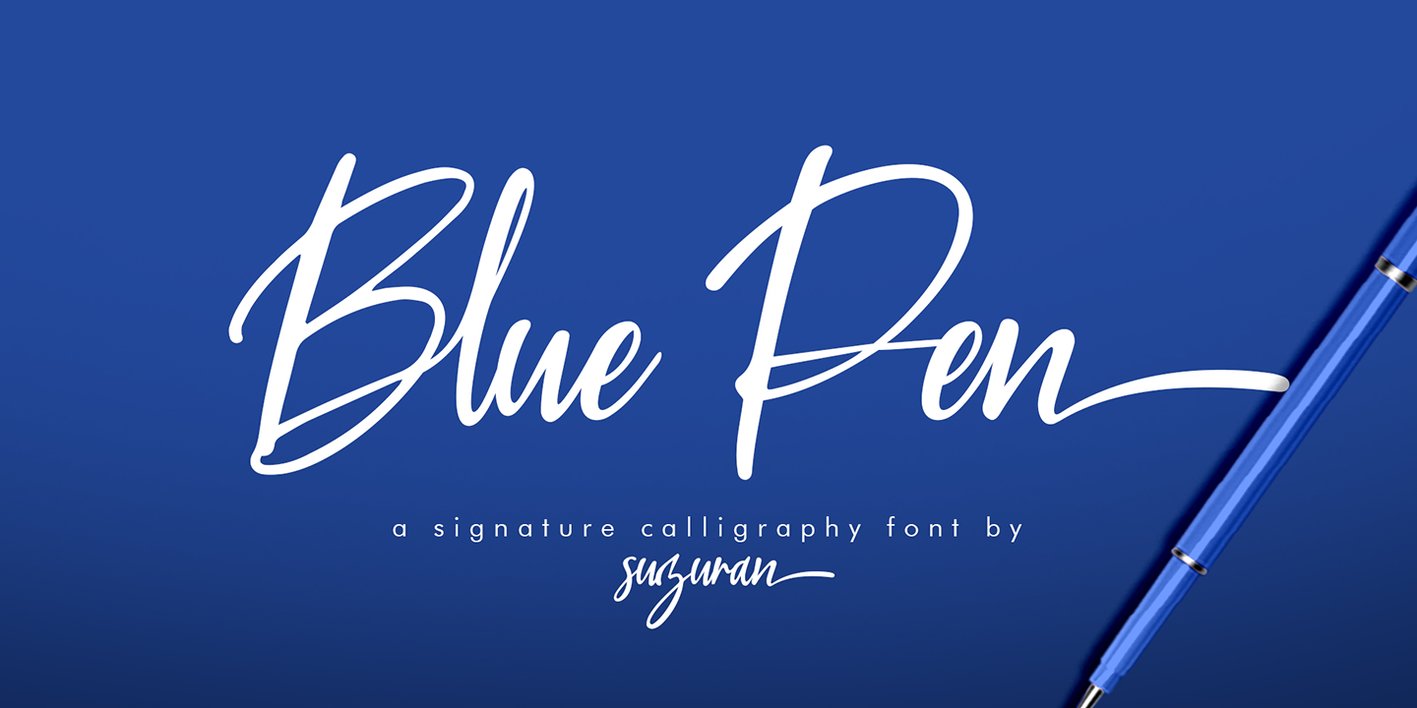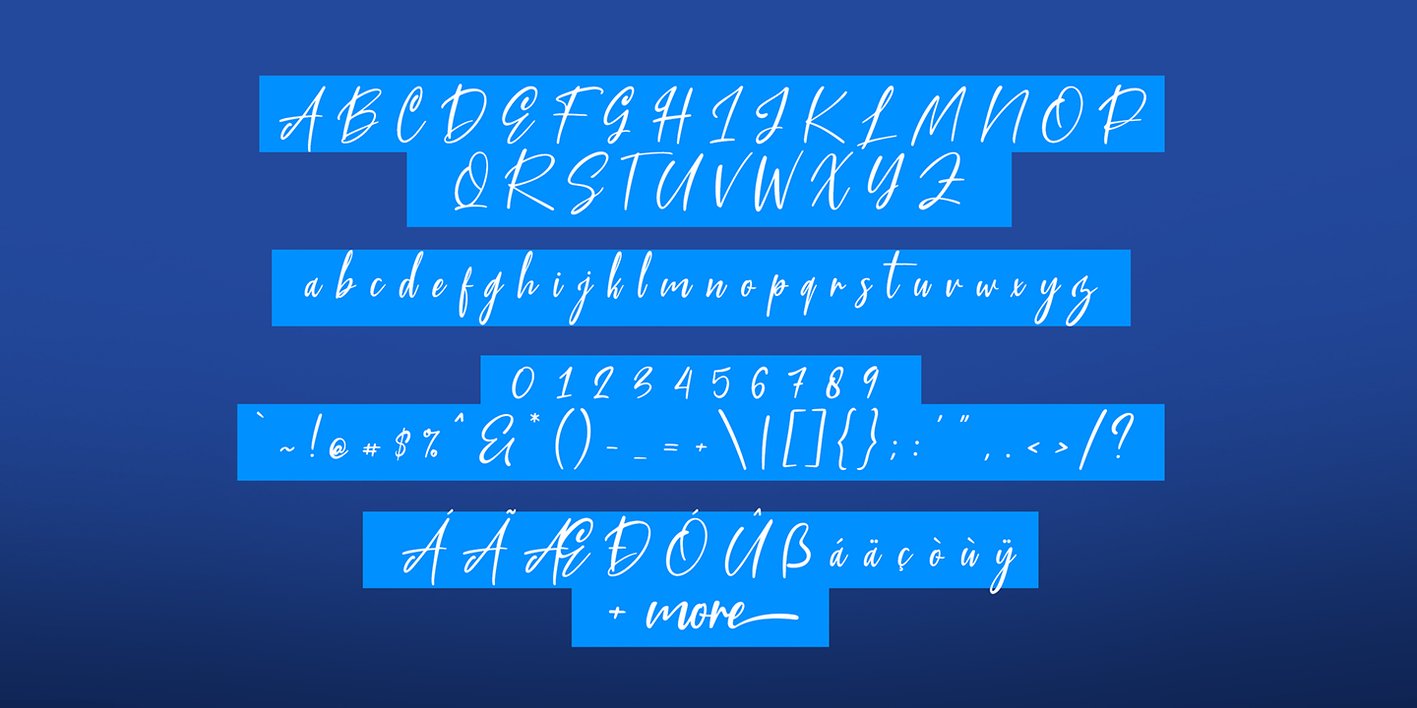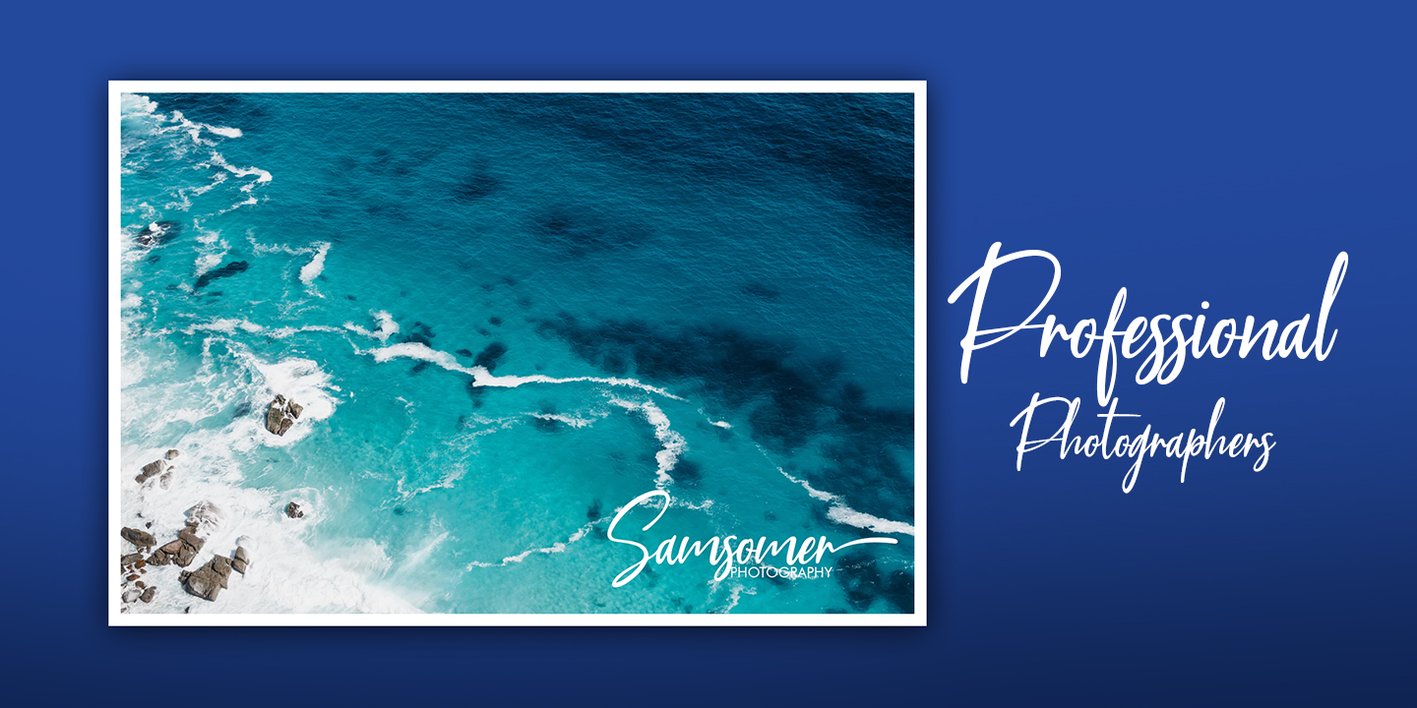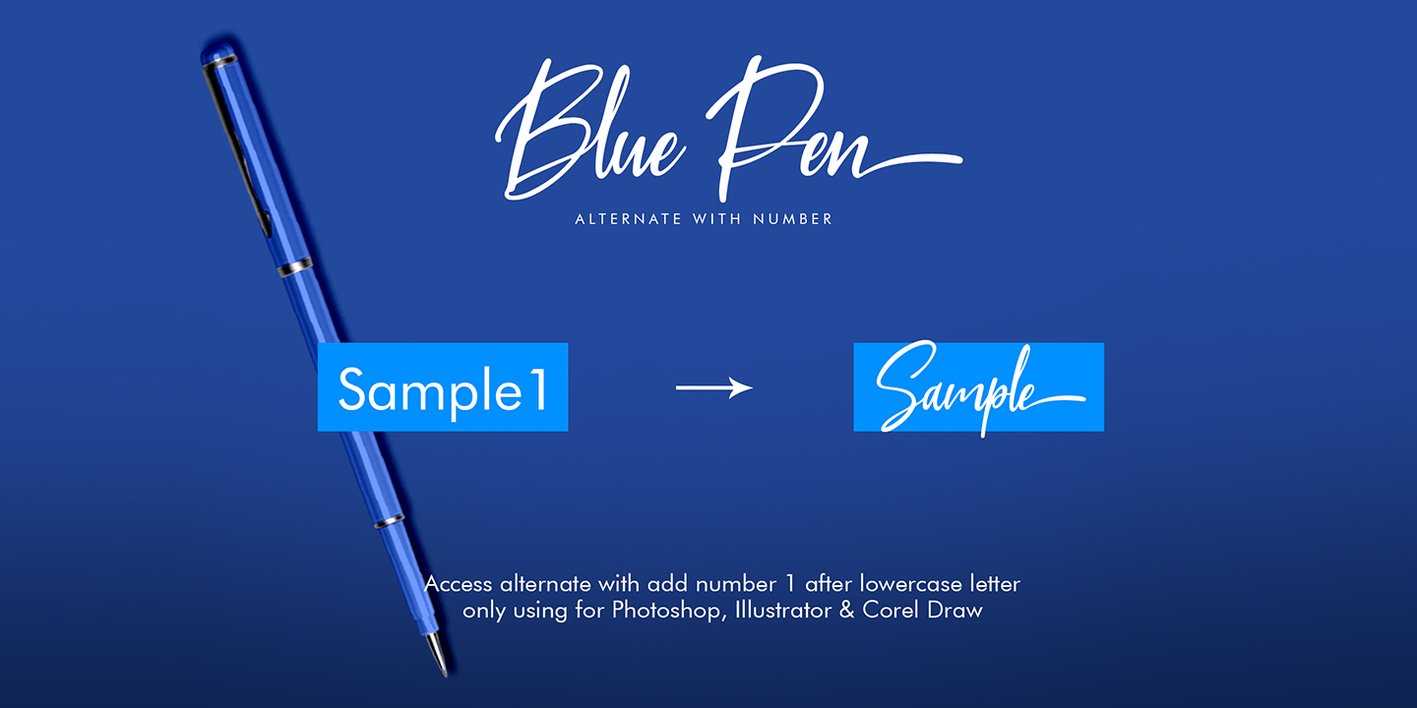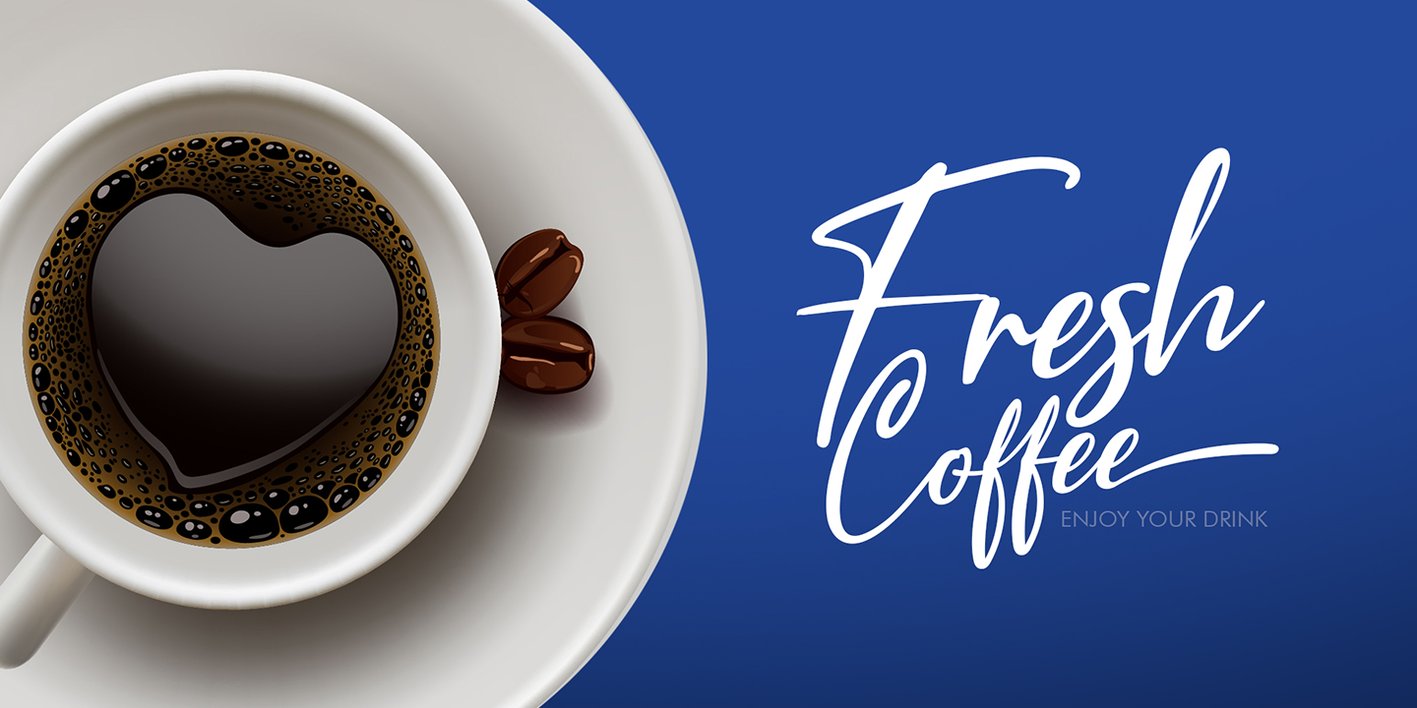
Blue Pen Font
Introducing the Blue Pen script, a font that is very fresh and unique style handmade. Blue Pen script is perfectly suited to logos, signature, stationery, posters, apparel, branding, wedding invitations, cards, tagline, layout design, and much more.